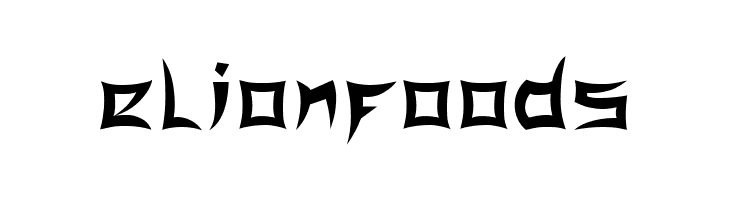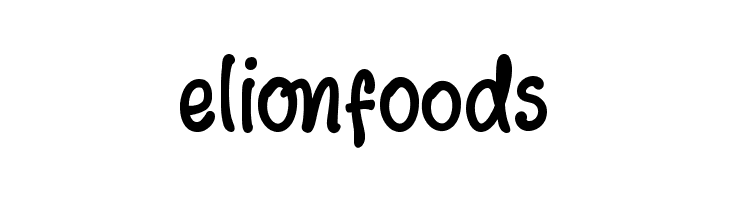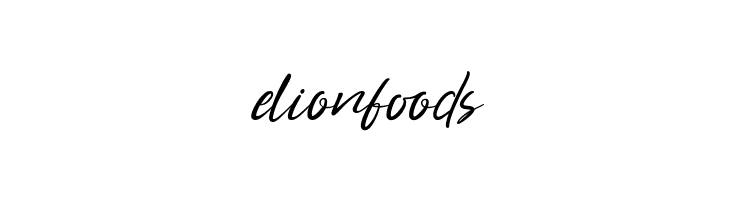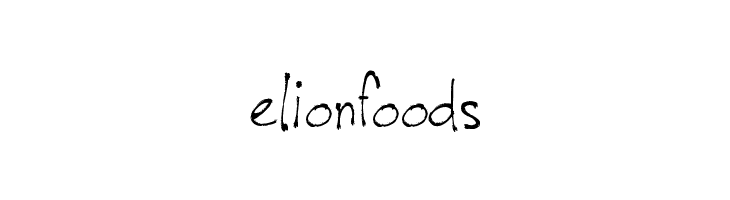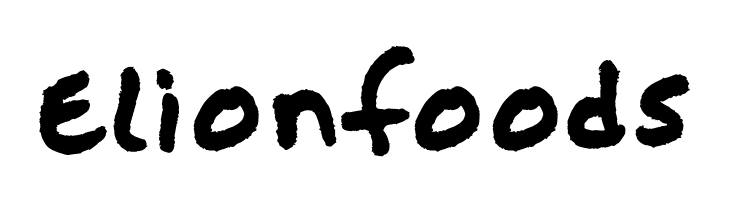
A bold, angular font with a modern twist on traditional calligraphy.
A bold, handwritten font with a casual and playful style.
A dynamic and fluid script font with elegant, flowing letterforms.
A bold, jagged font with sharp angles and an energetic, primitive style.
A playful, bold handwritten font with rounded letterforms.
A geometric and artistic font with sharp, angular letterforms.
A bold, playful font with a whimsical, cartoon-like style.
A whimsical, decorative script font with intricate swirls and loops.
A whimsical, handwritten font with artistic flourishes and dynamic line variations.
A casual, handwritten font with a natural flow and slight slant.